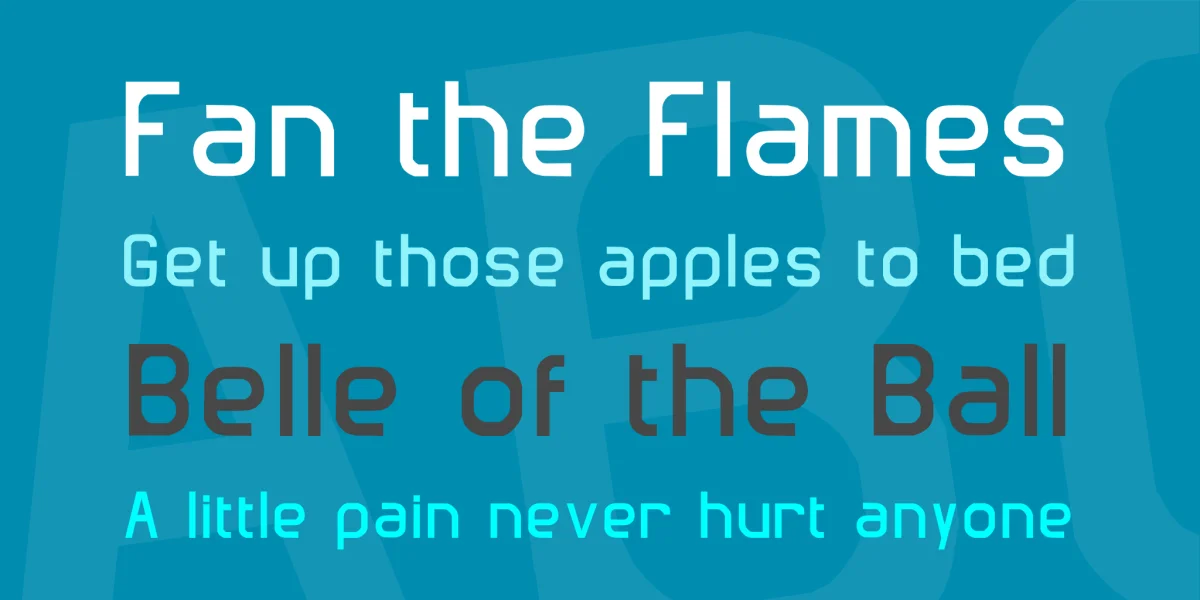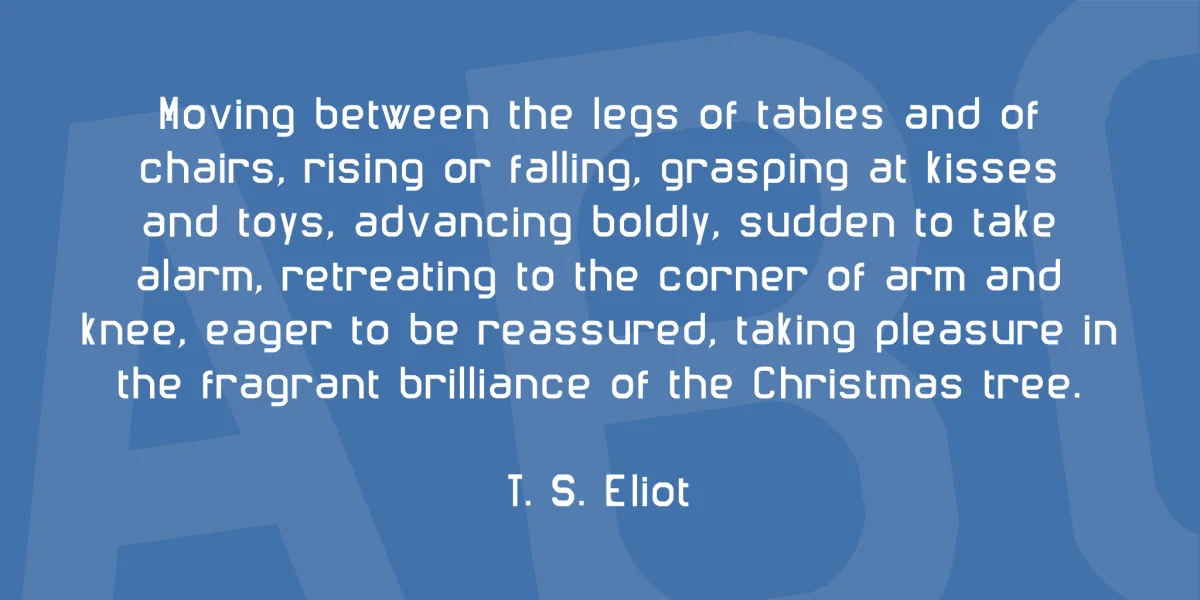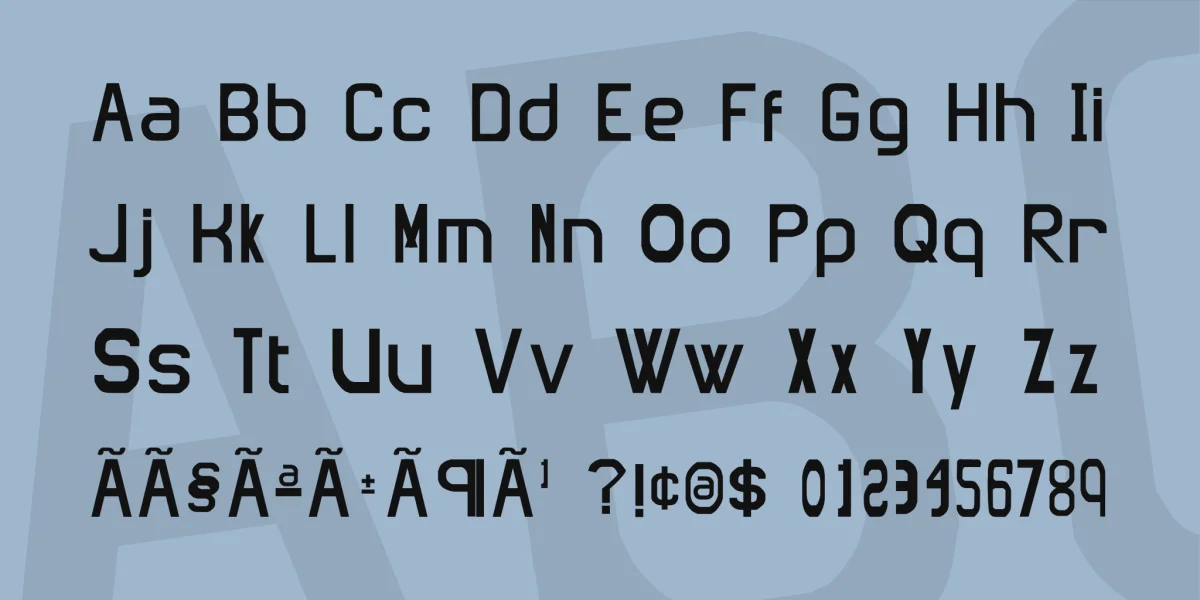
Engadget, a font by John Stracke, www.thibault.org/fonts/ .
This font is called Engadget because it is based on the modernistic letters in the logo of the Engadget blog (http://www.engadget.com).